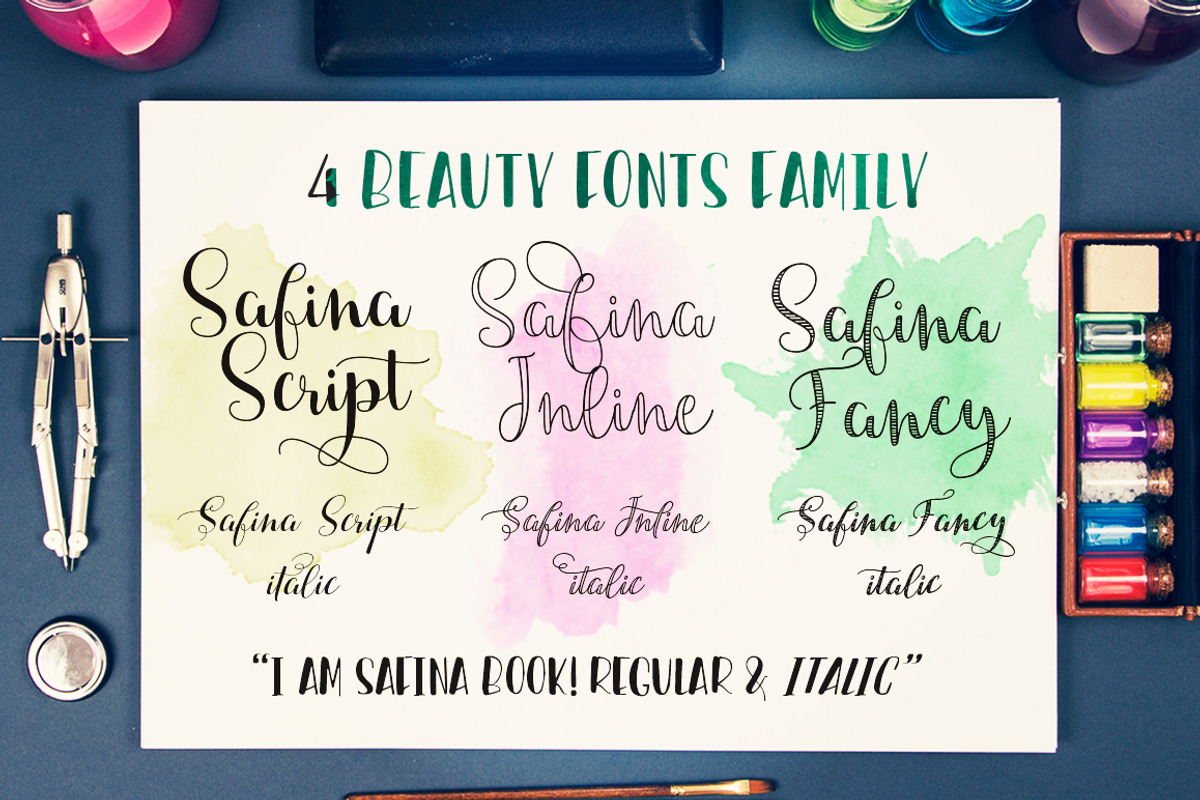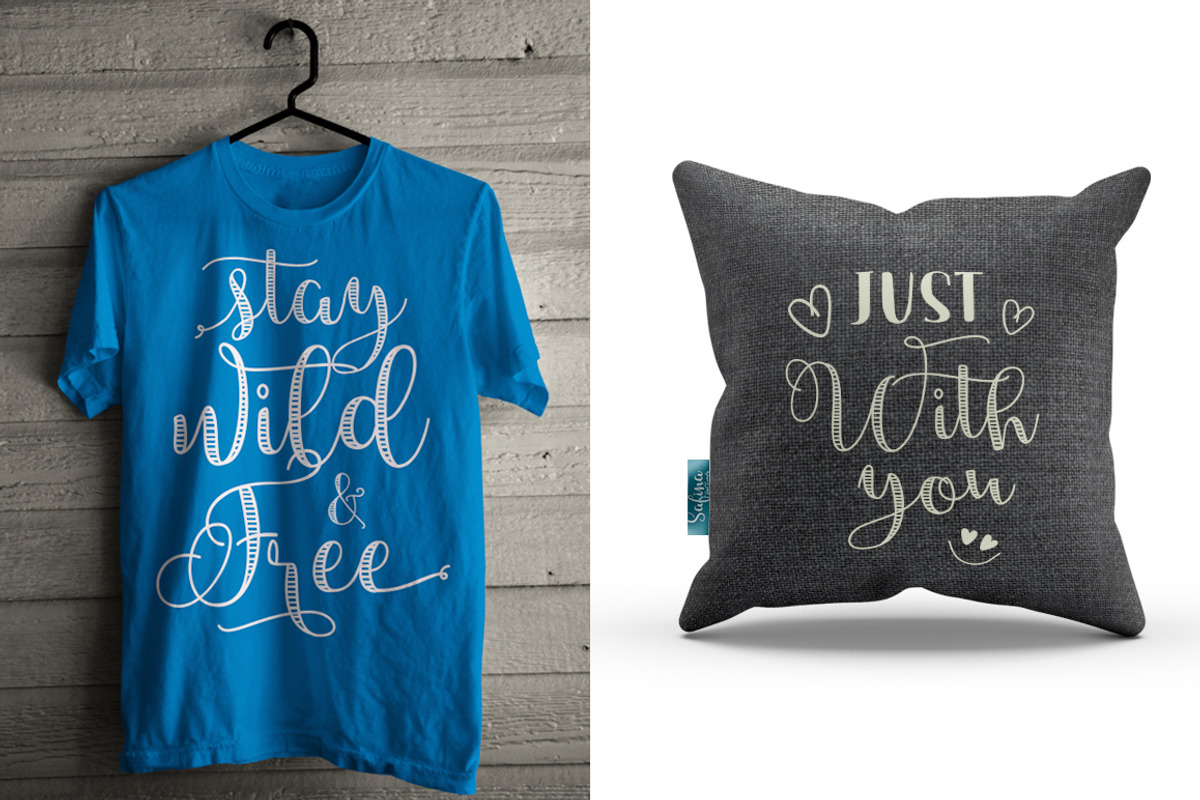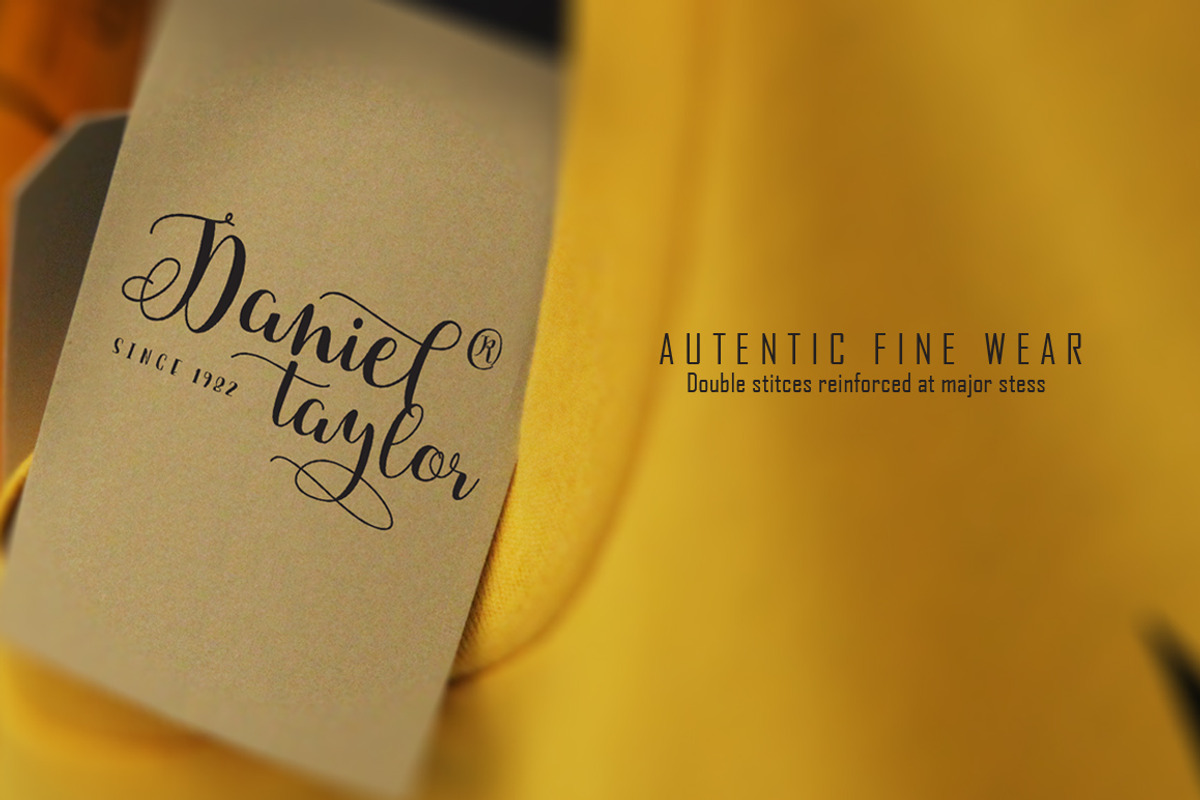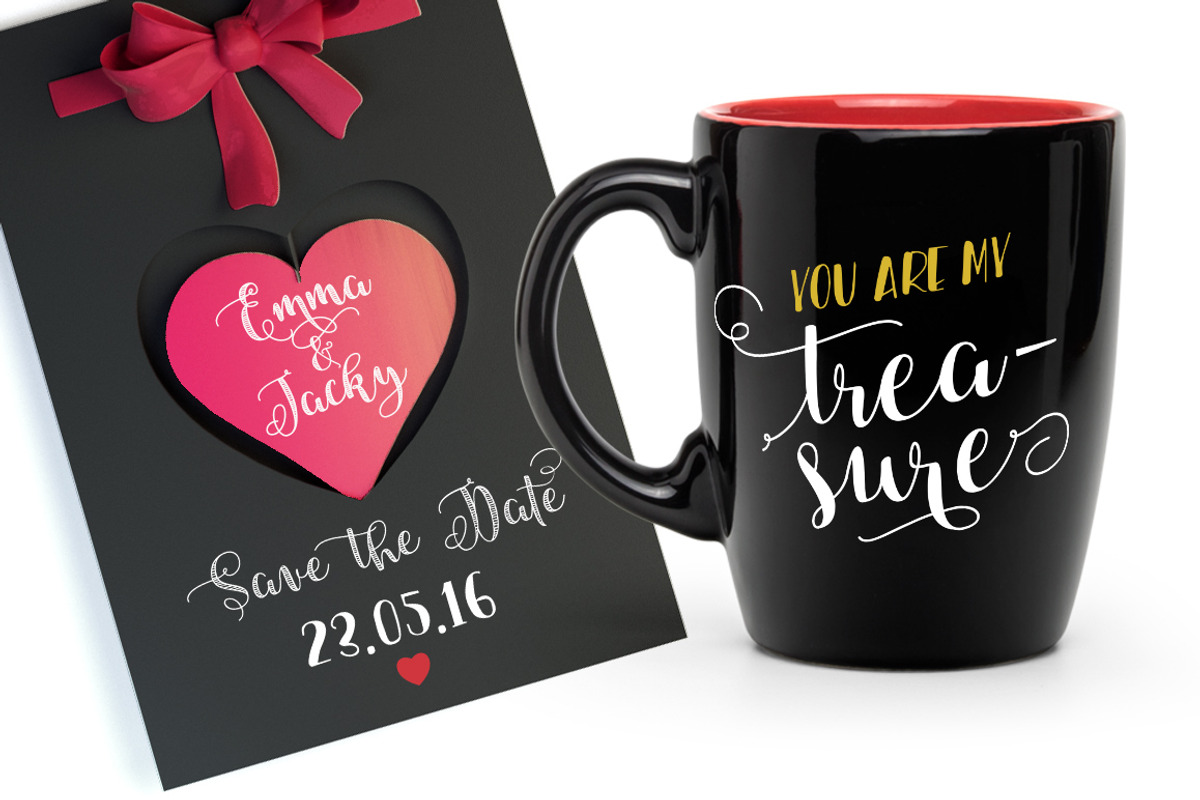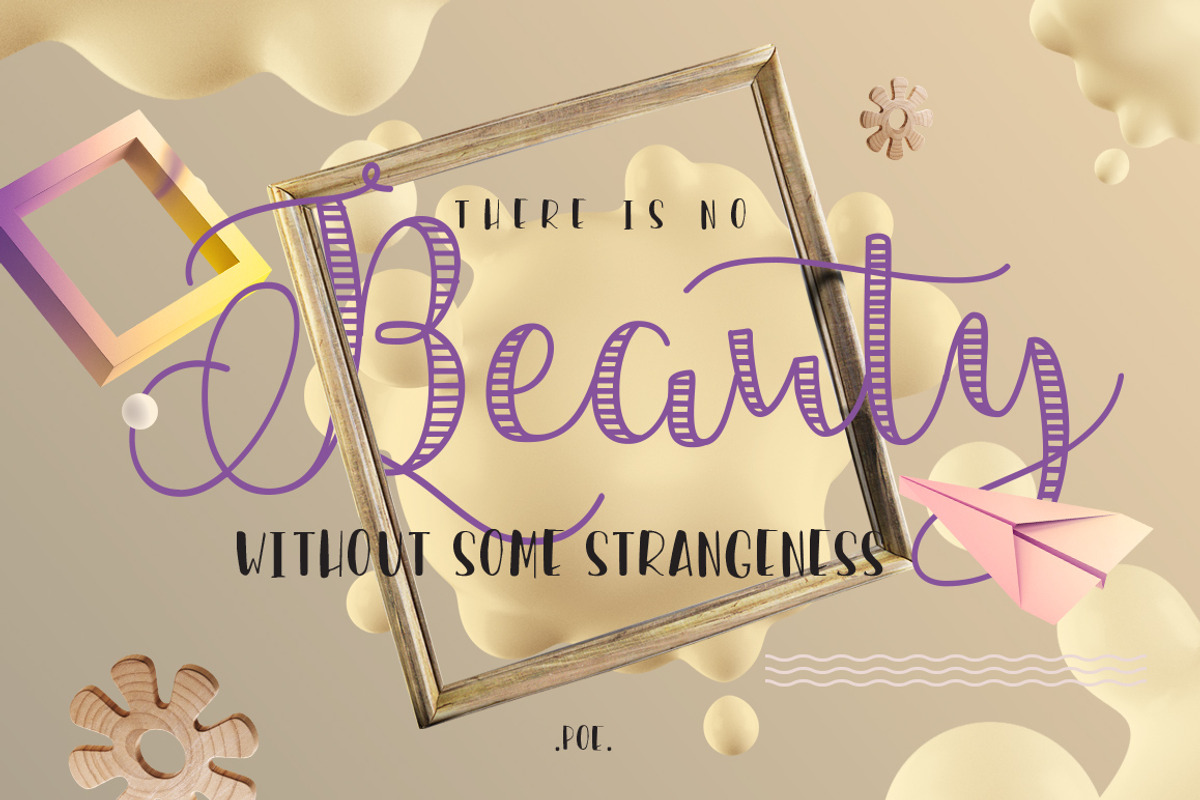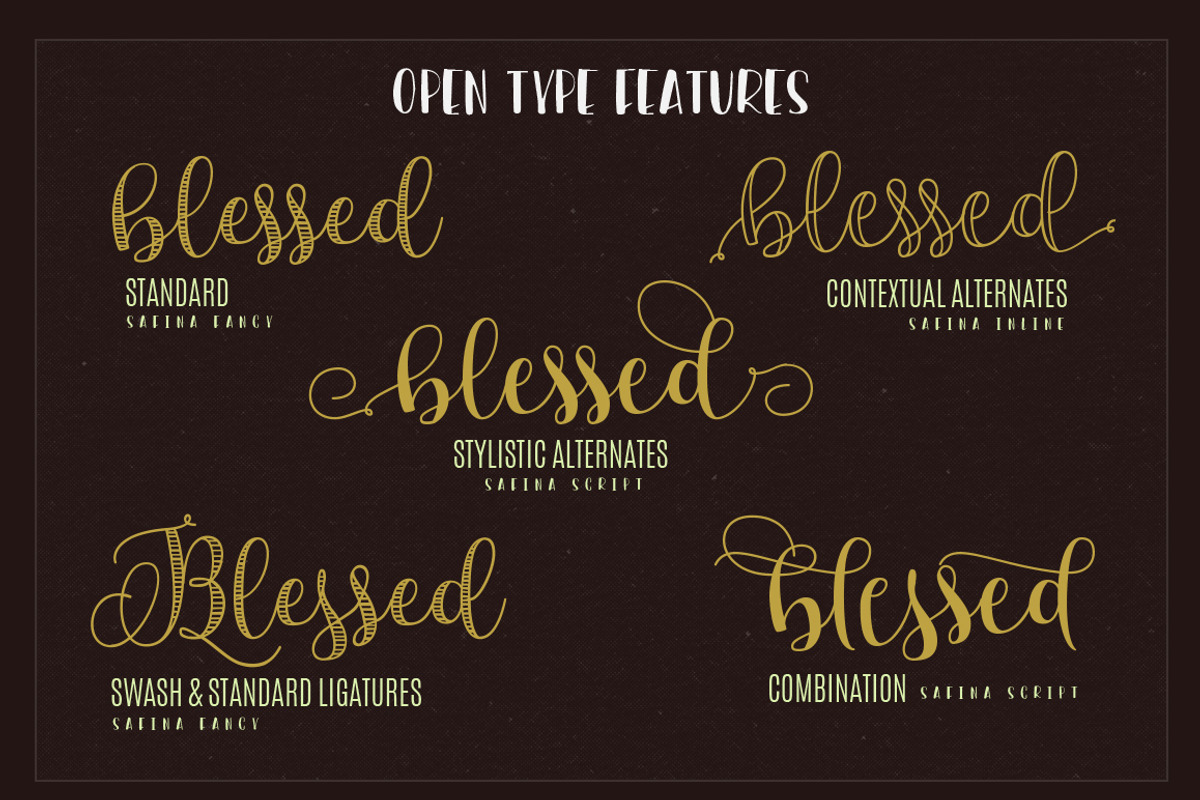
Safina Font Family
Safina Font Family by JROH Creative is a font selected for branding, posters, packaging, typography.
- Safina font consists of 4 family: Safina Script (regular and italic ), Safina Inline (regular and italic ), Safina Fancy ( Regular & italic
- Except Safina Book only uppercase, punctuation and number only.
- Safina font family come complete with 402 glyphs, and most other glyphs is a variation which is parts of the OpenType features such as; Stan
Why Safina Font Family is worth a look
Safina Font Family by JROH Creative fits naturally into Branding, posters, packaging, typography.